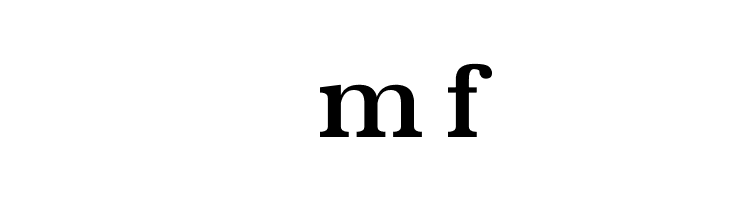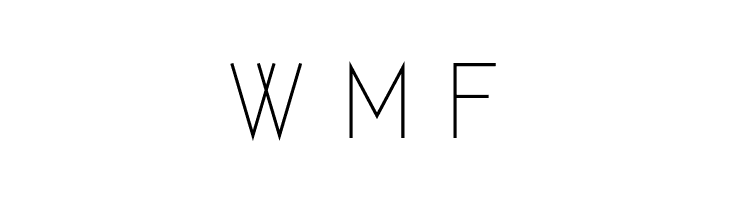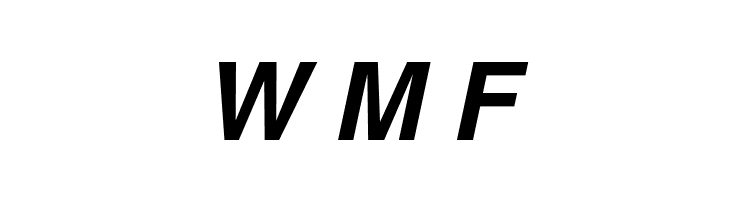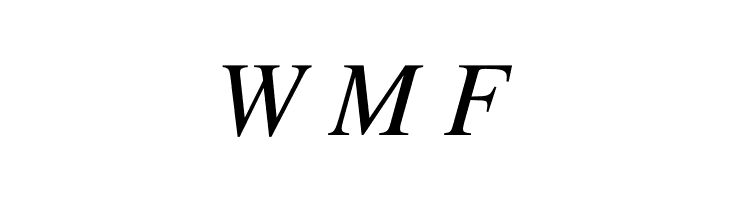
A modern, oblique sans-serif font with a sleek and dynamic style.
A bold, oblique sans-serif font with a modern and dynamic style.
A classic serif typeface with elegant, traditional letterforms and moderate contrast.
A bold, italic serif font with a classic and elegant style.
A bold, classic serif font with strong, authoritative strokes.
An elegant serif font with italic styling, perfect for classic and sophisticated designs.
A playful, bold font with rounded, bubbly characters.
A sleek, modern font with clean lines and a slightly condensed form.
A bold, modern sans-serif font with geometric structure and clean lines.
A classic serif font with high contrast and elegant curves.
A bold, modern take on traditional blackletter with sharp, angular lines.
A modern serif font with playful curves and sharp edges.
A bold, modern sans-serif font with geometric lines and balanced proportions.
A bold, playful font with exaggerated, irregular shapes and a whimsical style.
A sleek, modern font with thin, elongated characters and a minimalist design.